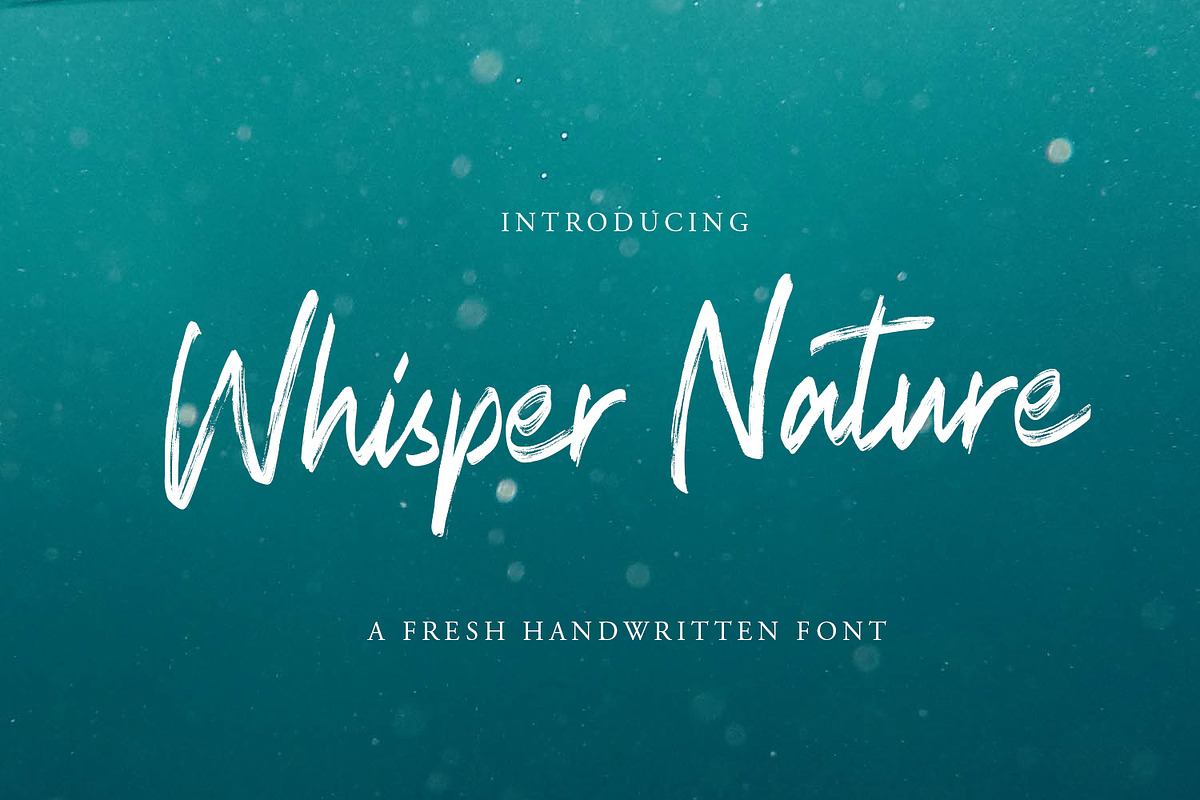
Whisper Nature - Brush Script Font Free Download
Whisper Nature – Brush Script Font Free Download
Whisper Nature – Brush Script Font Free Download is a graceful and organic typeface that captures the beauty of handwritten brush strokes with a natural, calming flow. Ideal for nature-themed branding, wellness products, wedding invitations, quotes, and earthy packaging designs, this font adds a personal and heartfelt touch to every project. With its fluid movement and soft elegance, Whisper Nature feels like poetry on a page. Whether you're crafting a rustic logo or designing a soulful social media post, Whisper Nature – Brush Script Font Free Download lets you explore the font’s essence in personal work before committing to a commercial license. This font doesn’t shout—it gently speaks, telling your story with authenticity and warmth. Let your designs breathe with the peaceful energy of nature through this beautifully handcrafted script.